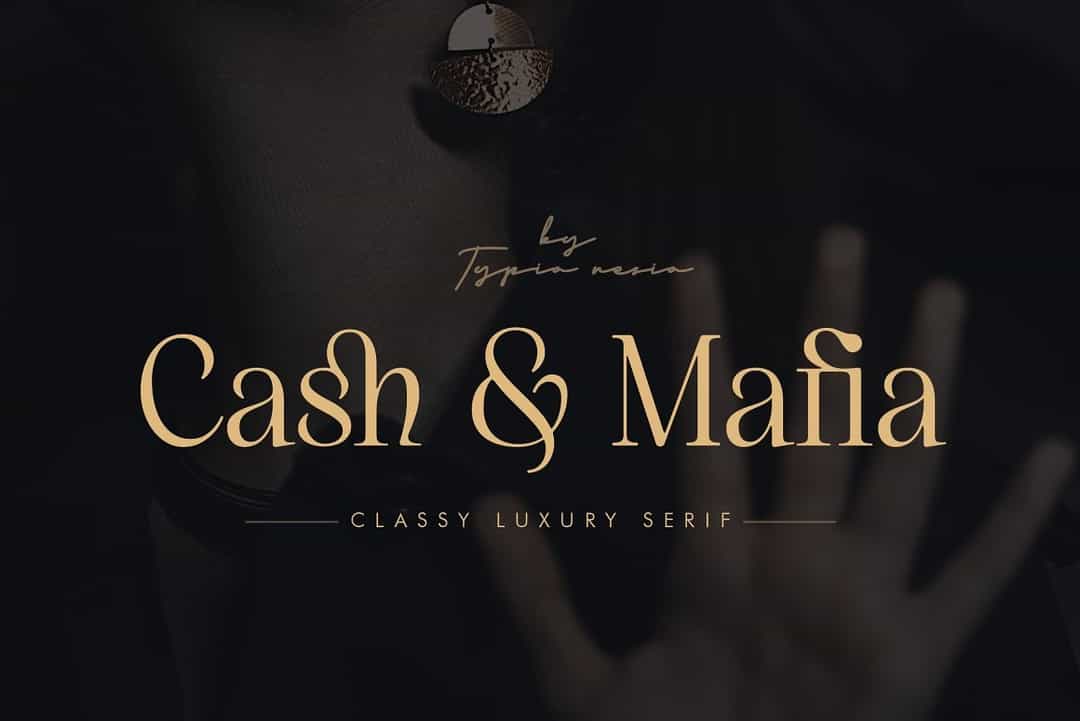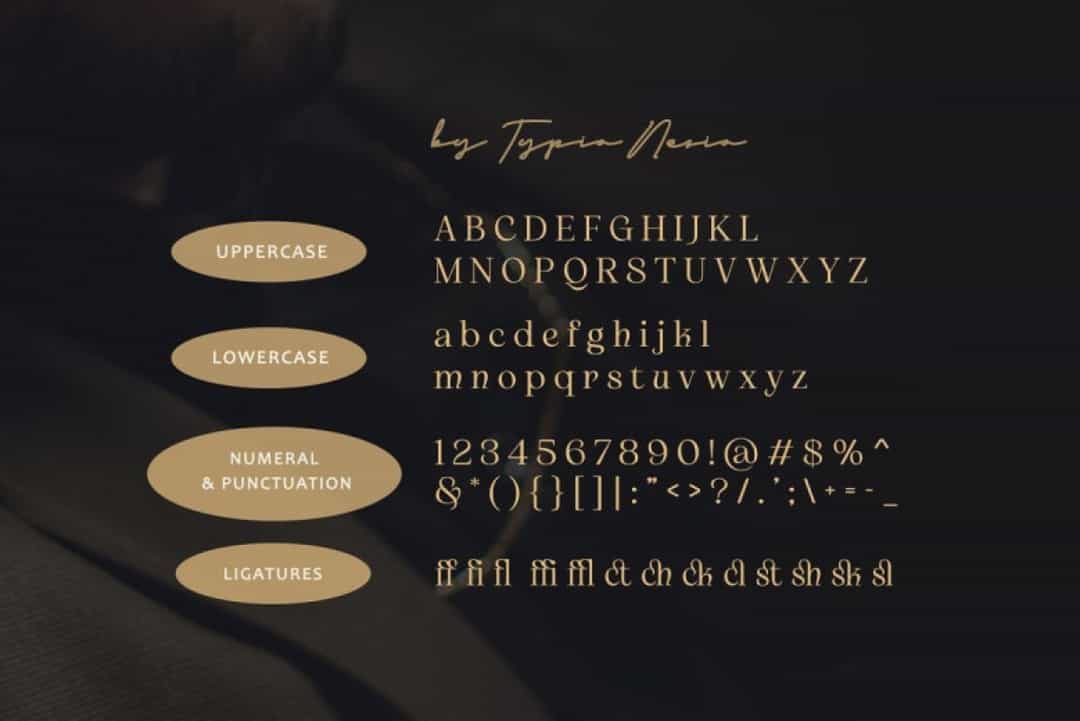
Cash and Mafia Serif font is ideal for all your upcoming projects, from logo design and branding, elegant editorial design, elegant editorial layouts for woman magazines with cosmetic brands, fashion-related advertisements in art galleries museums or designer stationery boutiques to blog design for boutique brands, card invitations art quotes interior decor book cover titles special events as well as other uses.